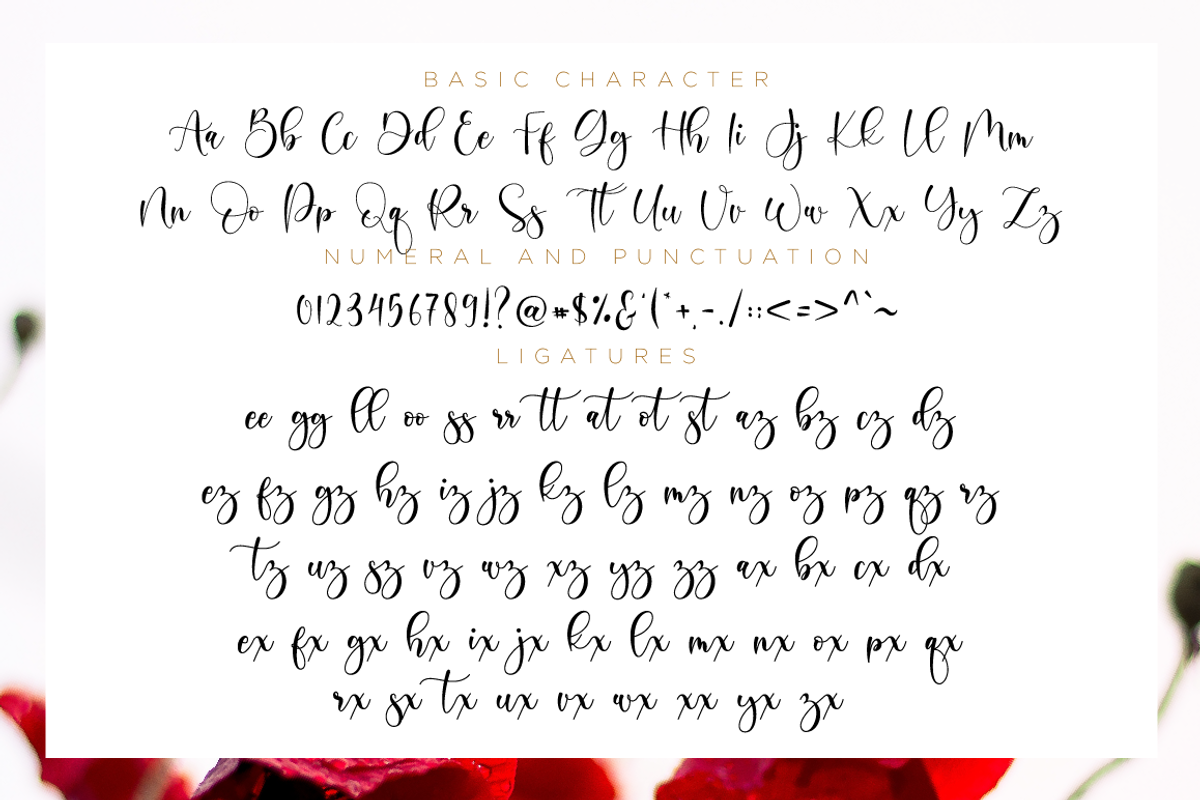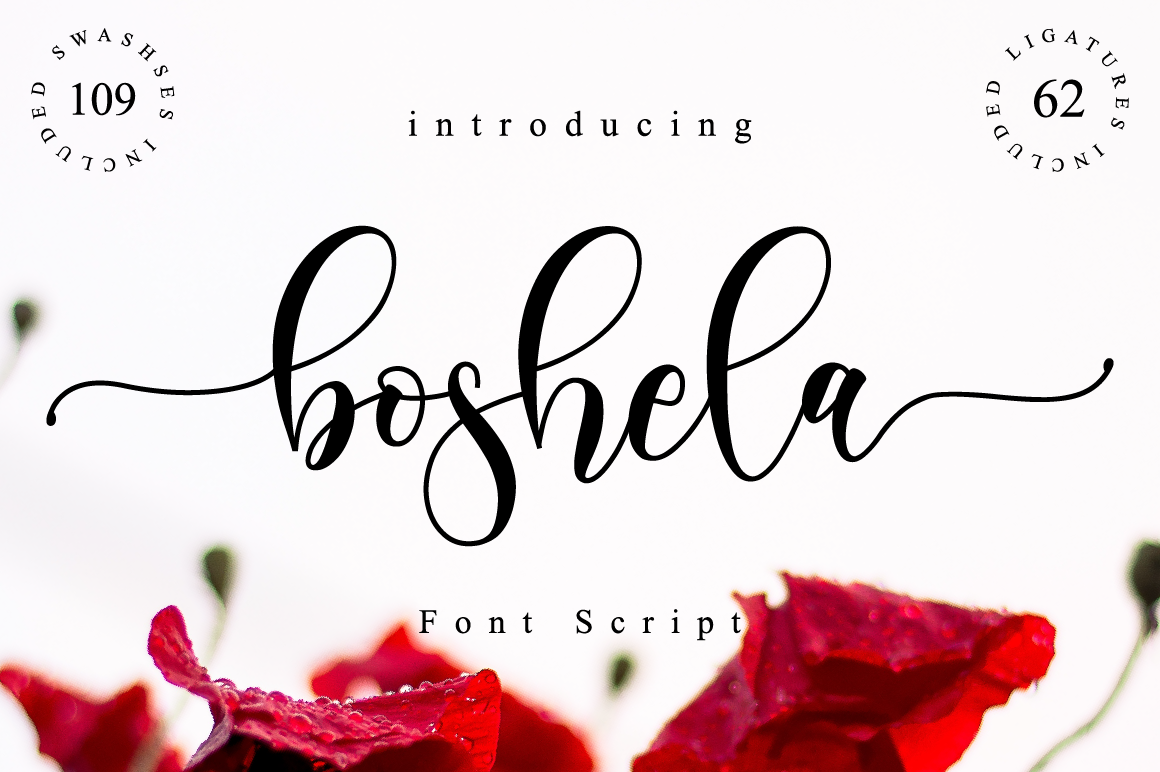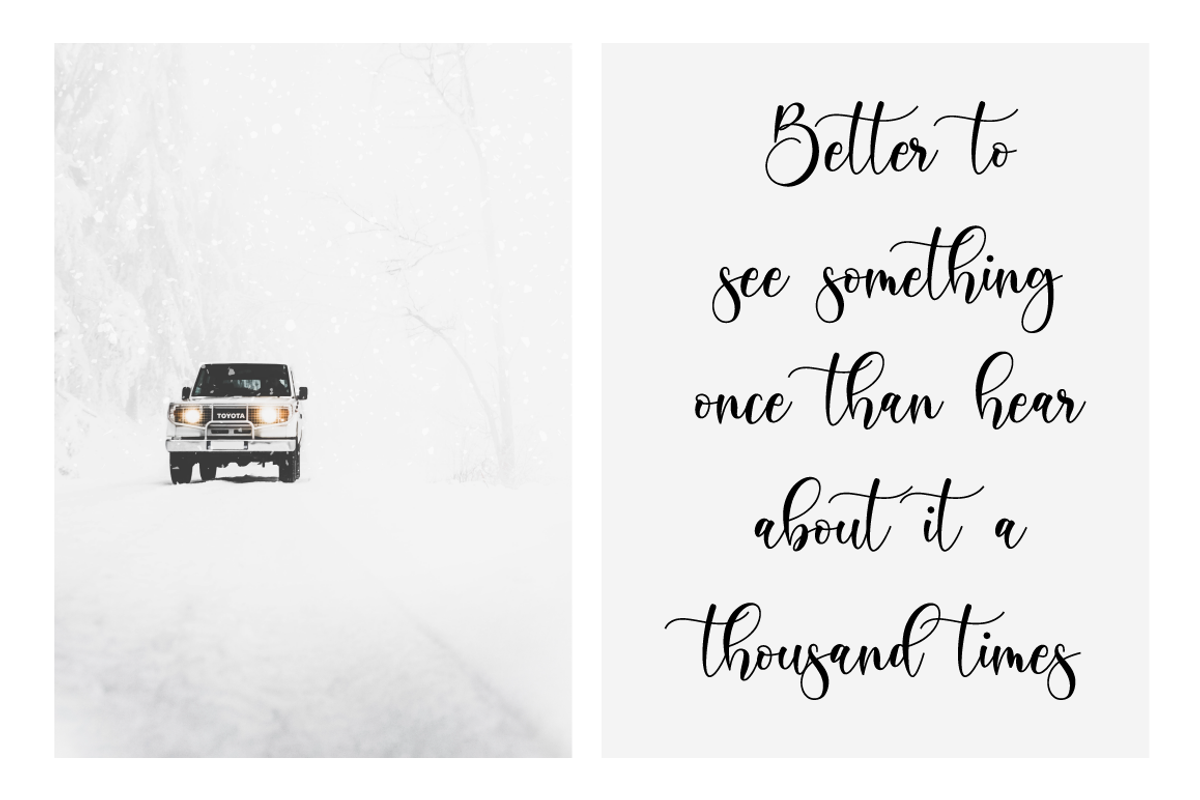
Boshela - Wedding Font
Boshela is a beautiful script font with a classy, elegant, and modern look. Get inspired by its authentic vibe!
Each Font Has:
- Modern Handwritten Font
- Beautiful Swash (Ending tail)
- Beautiful Titling (Beginning tail)
- Special Ligatures